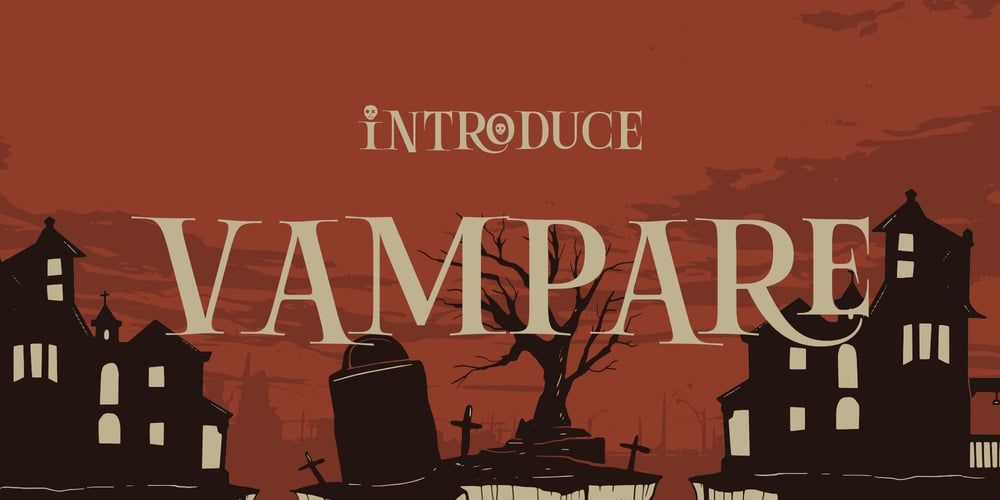
Vampare Font Family was designed by Candi Erwanto and published by Objectype. Vampare contains 1 styles and family package options. Vampare is a Halloween-themed display font that brings a spooky, cheerful, and fun vibe to your designs. Carefully crafted to add a unique touch to your projects, Vampare comes with a variety of excellent features: – Uppercase & lowercase letters. – Numbers & punctuation. – Multilingual support. – OpenType features & ligatures for creative flair. This font is perfect for various design projects, such as: – Advertising & branding. – Product and packaging designs. – Magazines, books, or cover titles. – Special events, labels, and much more! Add a playful creepiness to your creations with Vampare Font Halloween!